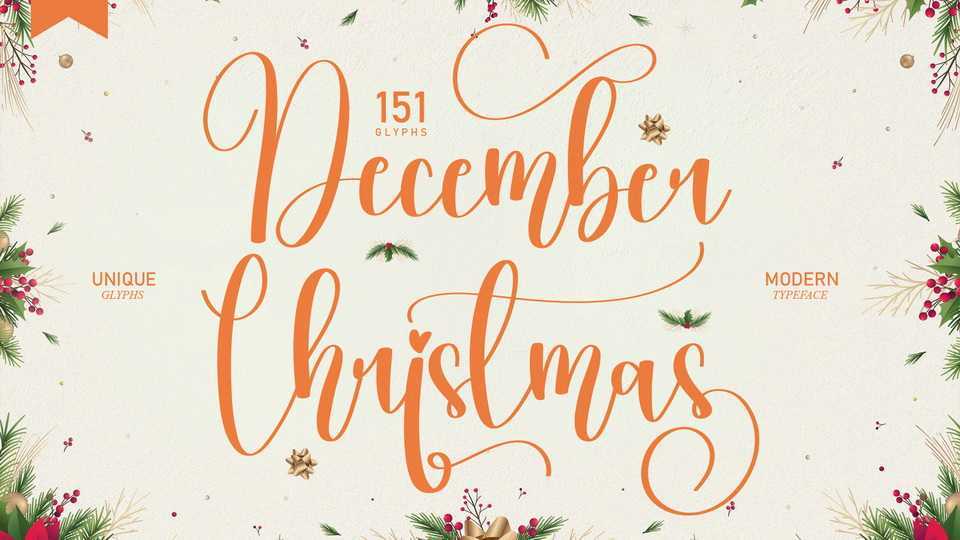
Download December Christmas font, a modern calligraphy typeface with unique decorative glyphs. December Christmas font is perfect for your creative ideas, both formal and informal.